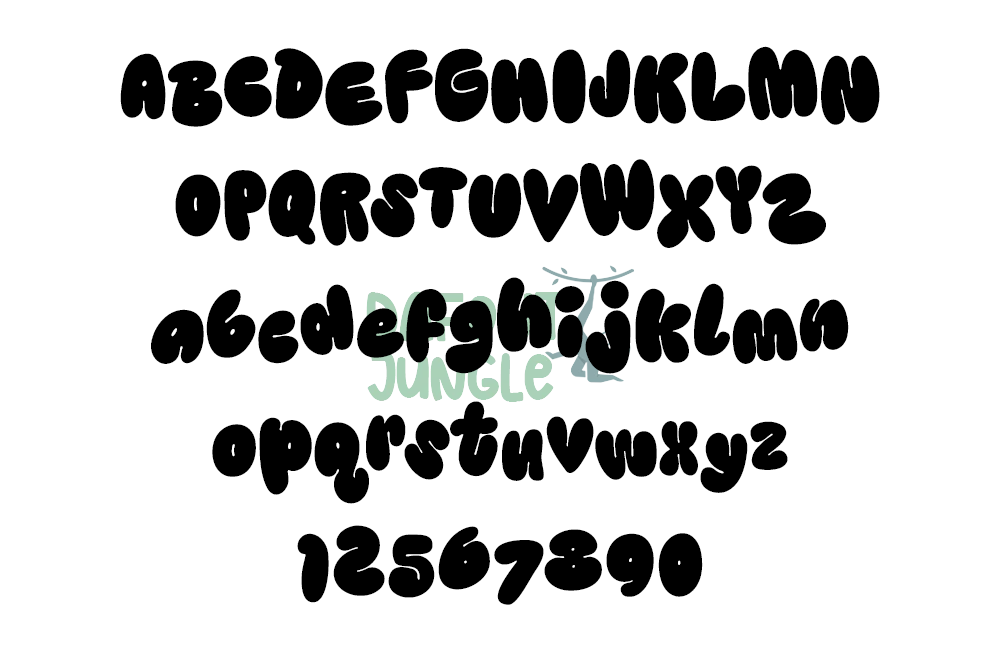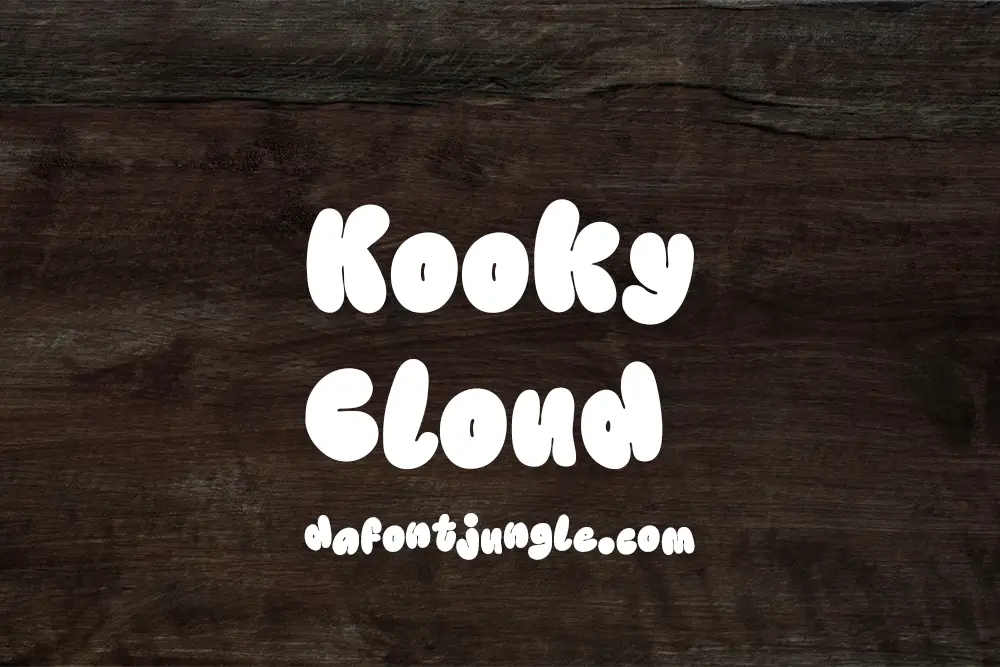
Kooky Cloud – Unique Bold Bubble Font
Kooky Cloud is a quirky bold bubble font with a hand-lettered, playful vibe. Designed for maximum kookiness, it features fun and wobbly curves that bring character to any project. The font includes alternate versions of every letter (A–Z, a–z), along with creative alternates for symbols like !, ?, and &.
Perfect for logos, quotes, signage, children’s books, and bold handmade designs, Kooky Cloud adds a touch of joy and personality wherever it appears.